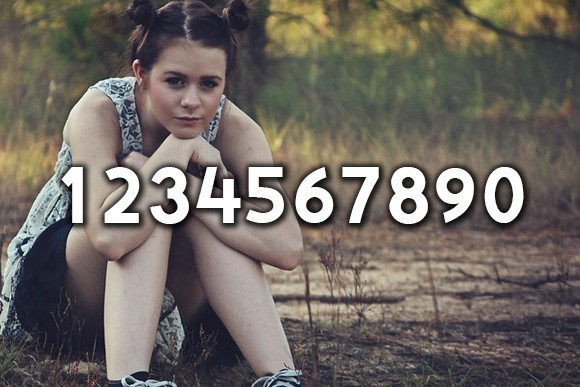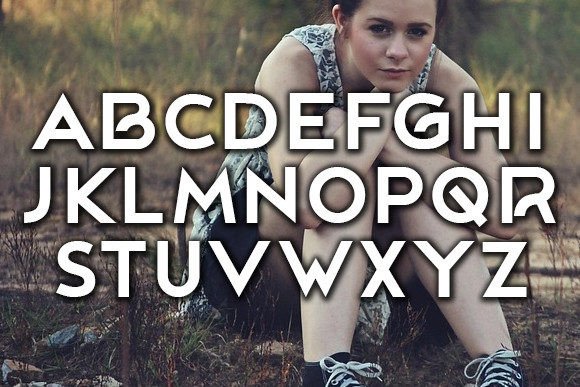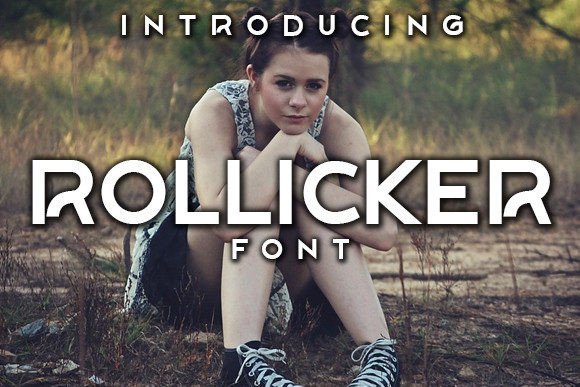
Introduction to Rollicker Font
Rollicker is a cool sans serif font that will fit any of your designs.
Use this font on posters, flyers, and t-shirts .
Rollicker Font offers exceptional quality and versatility, making it a valuable addition to your design toolkit. Whether you’re creating for personal projects or commercial use, Rollicker Font delivers professional results.